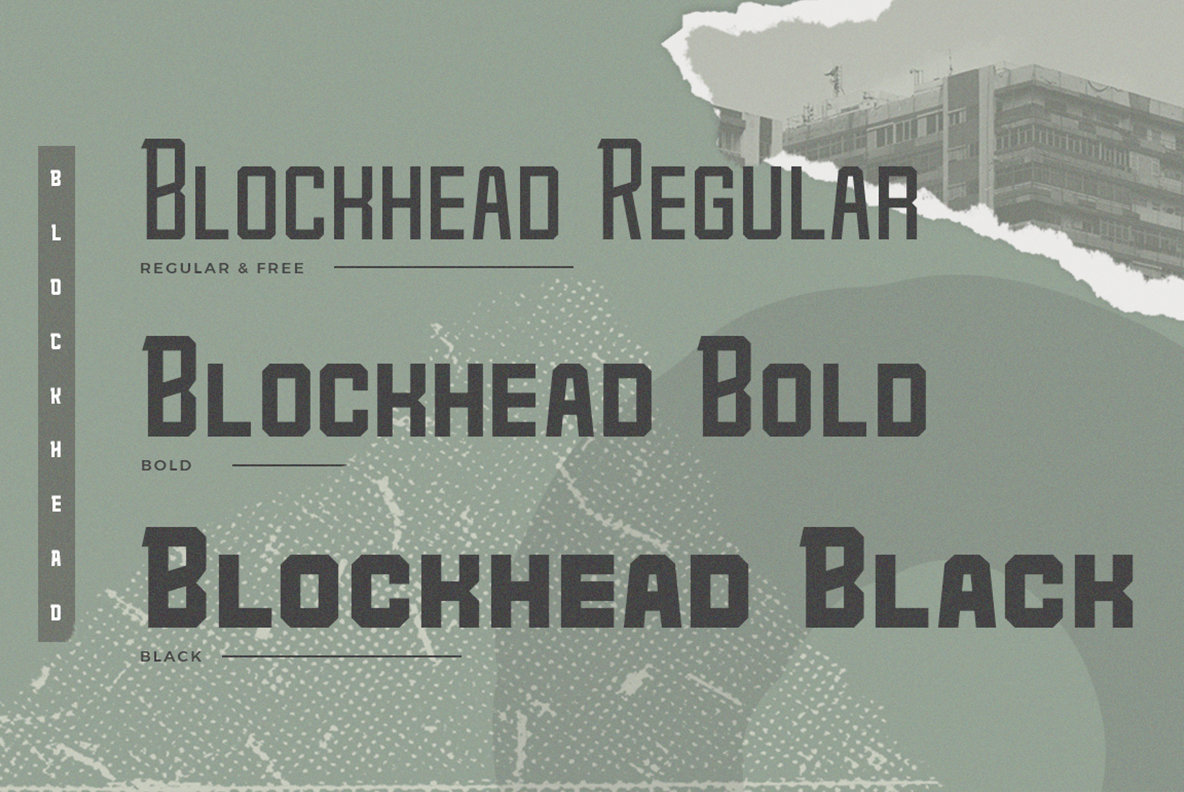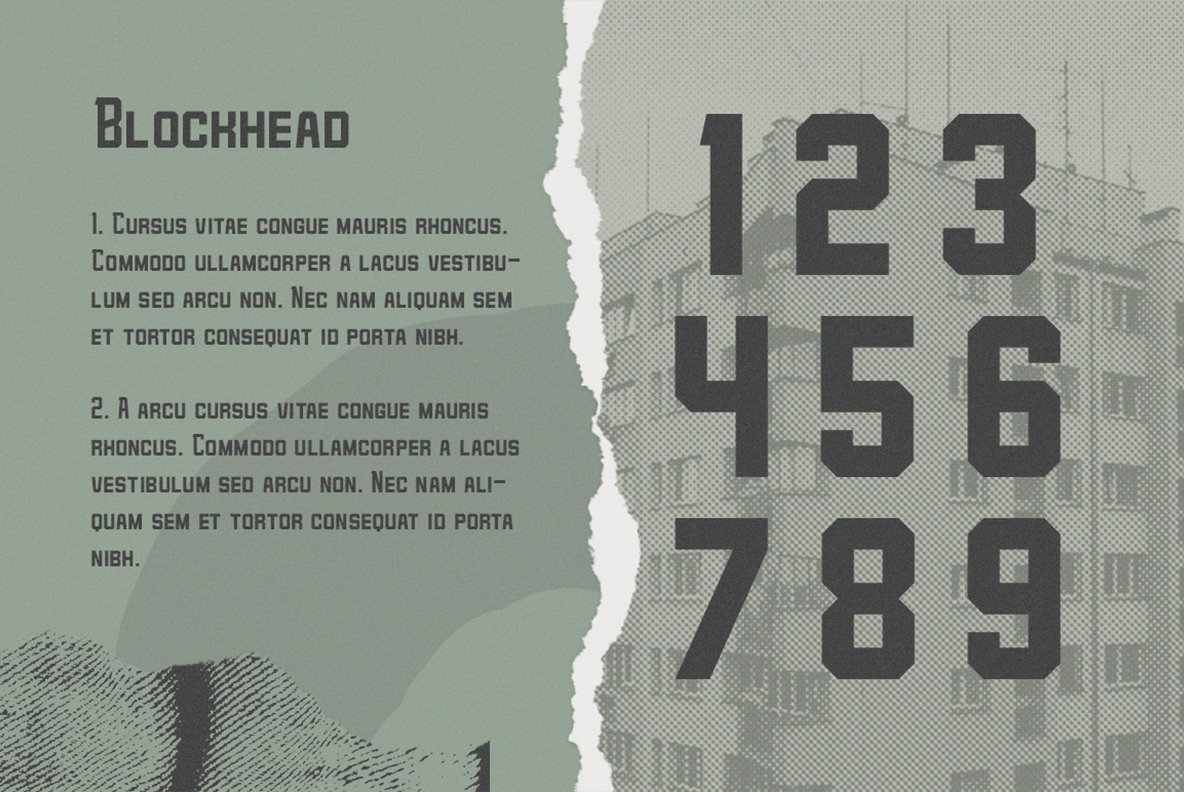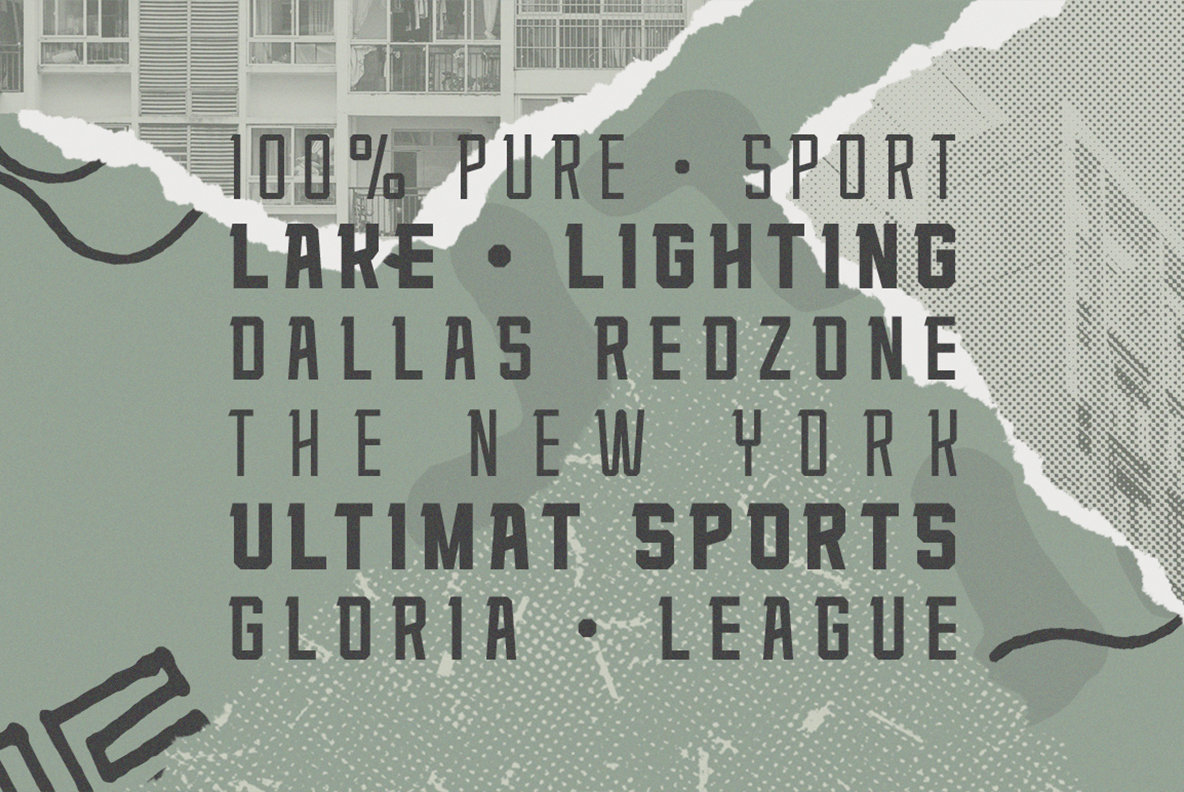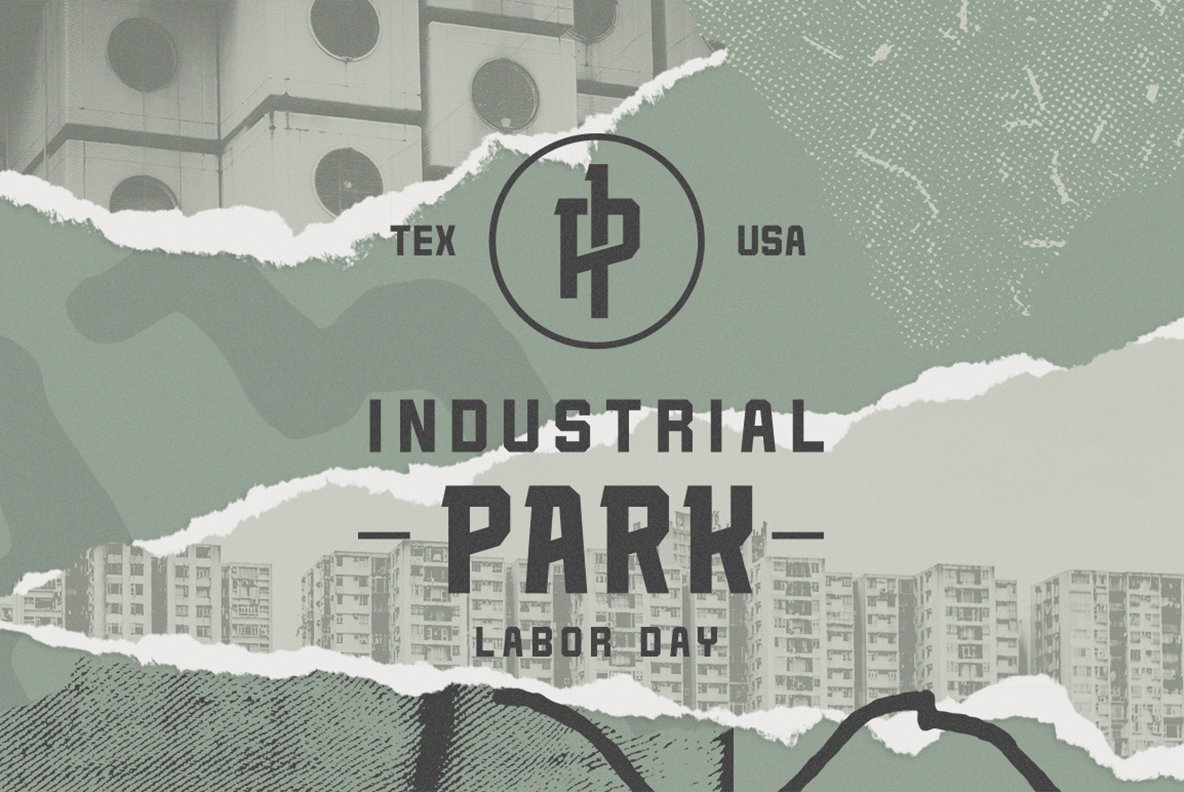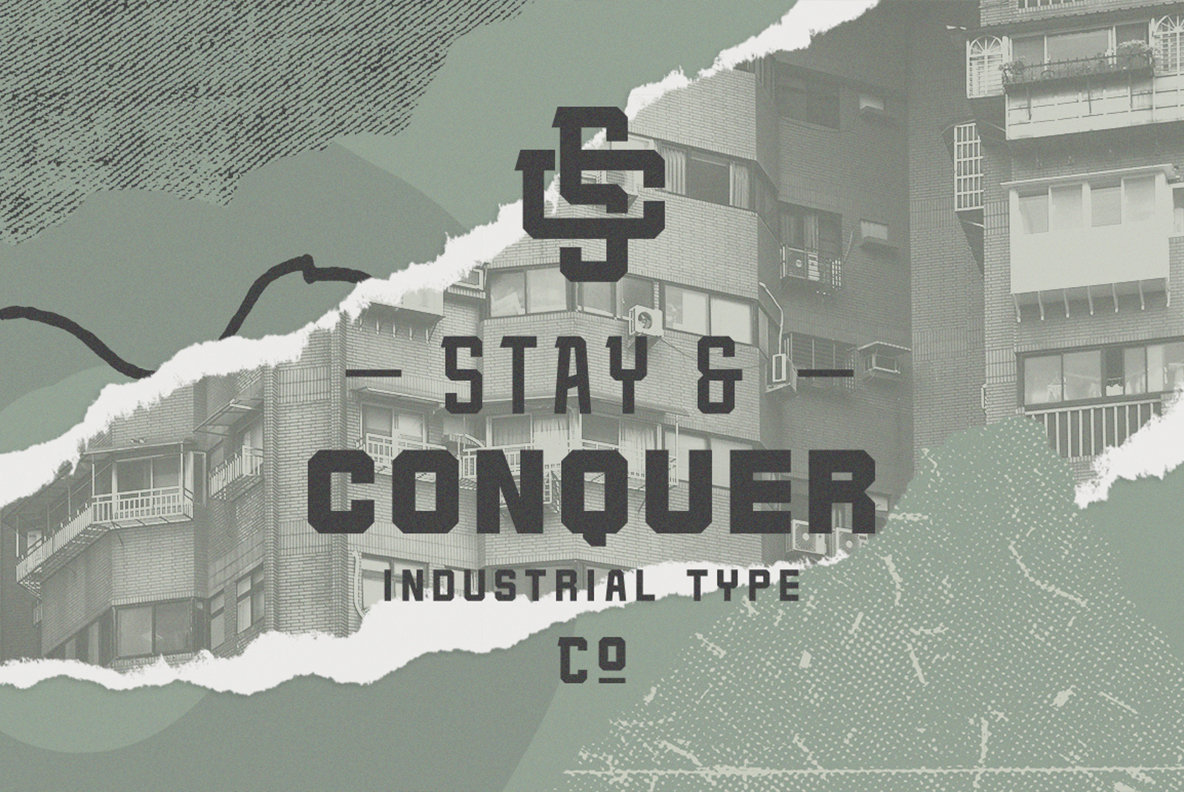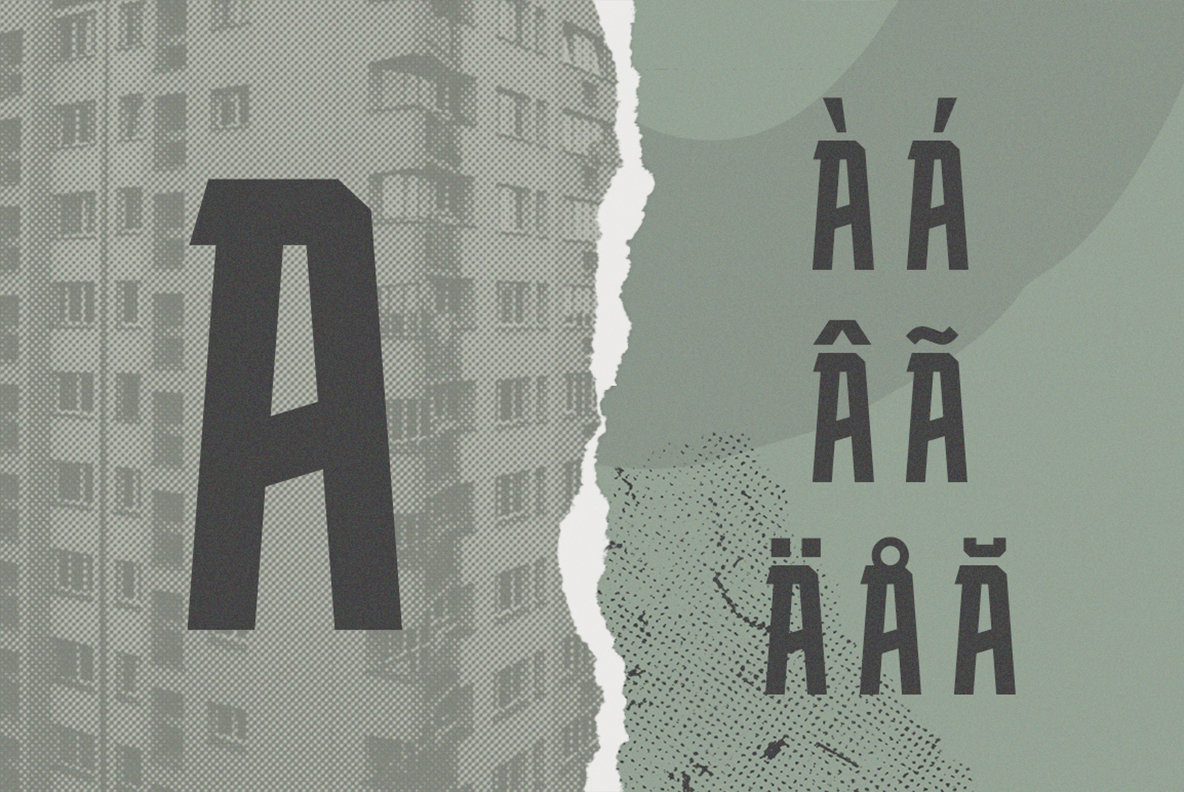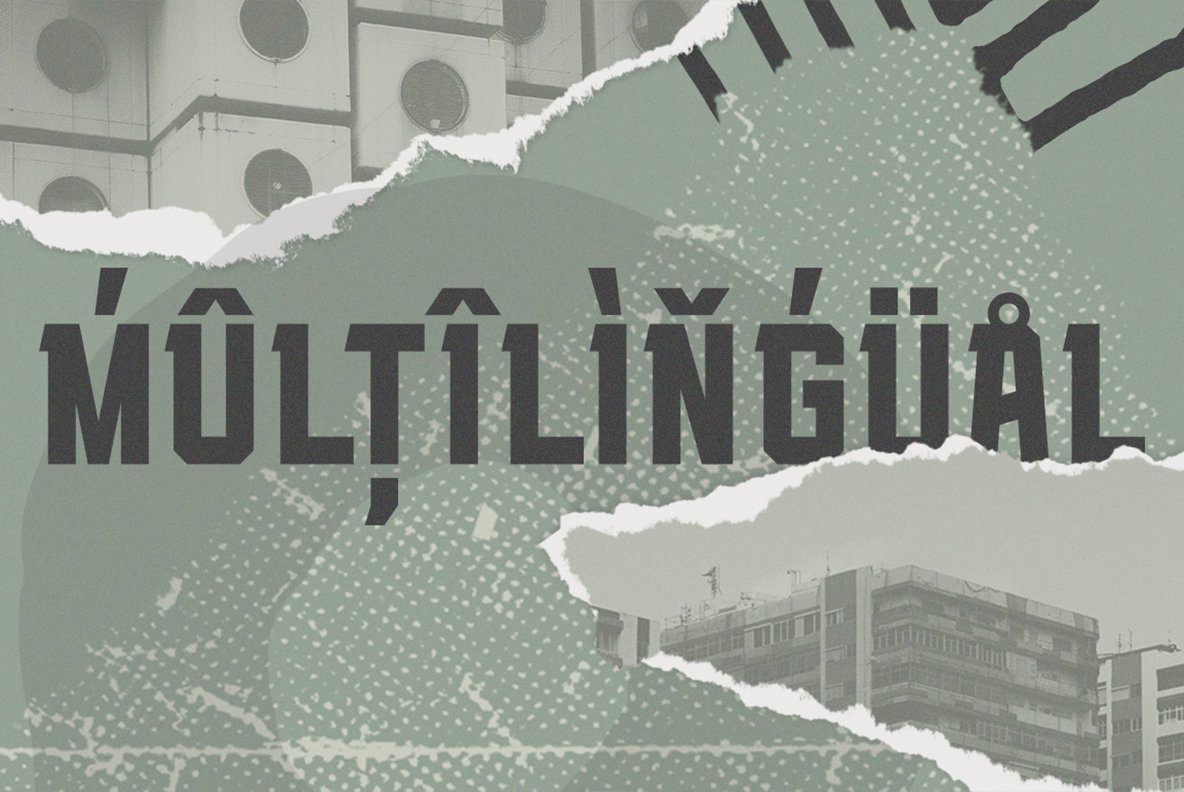
Blockhead Typeface Font
BLOCKHEAD is a robust slab serif font, designed to draw attention and highlight any project. Even though the inspiration for this font comes from the industrial department, Blockhead feels indeed powerful and bold, but it has also a modern and friendly touch/feel. This typeface has three weights, geometric thick strokes with a thin, sharp slab serif in the upper part of the letterform. Each weight has 252 glyphs, uppercase and lower uppercase and extensive Latin script support. Blockhead is perfect for industrial logo designs, bold posters,headers even for small and block text.
Add emphasis to your work and express with the vibrant Blockhead!